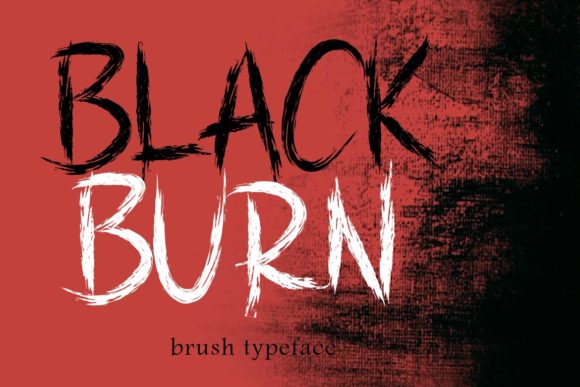
Introducing Blackburn Font, the display font that exudes raw attitude and undeniable charisma. With its rough edges and bold demeanor, Blackburn is not just a font; it's a statement. Designed by the creative genius, aminmario, Blackburn demands attention and commands respect.
Take your app design to new heights with Blackburn Font. Its unique charm and captivating presence will make your app stand out from the crowd. Immerse your users in an unforgettable experience, leaving them captivated and engaged. Blackburn Font is the perfect canvas for expressing your creativity and making a lasting impression.
Blackburn Font's bold and edgy character isn't just limited to app design. Its versatility knows no bounds. Inject a touch of rugged charm into your branding, add a dash of intrigue to your social media posts, or unleash its power in creating eye-catching headlines and posters. With Blackburn Font, the possibilities are endless.
Unleash your inner rebel and embrace the untamed spirit of Blackburn Font. Let its rough edges and edgy attitude ignite your creativity and redefine your design aesthetic. Dare to be different, dare to stand out. Blackburn Font is your weapon, your ally in the pursuit of design dominance.